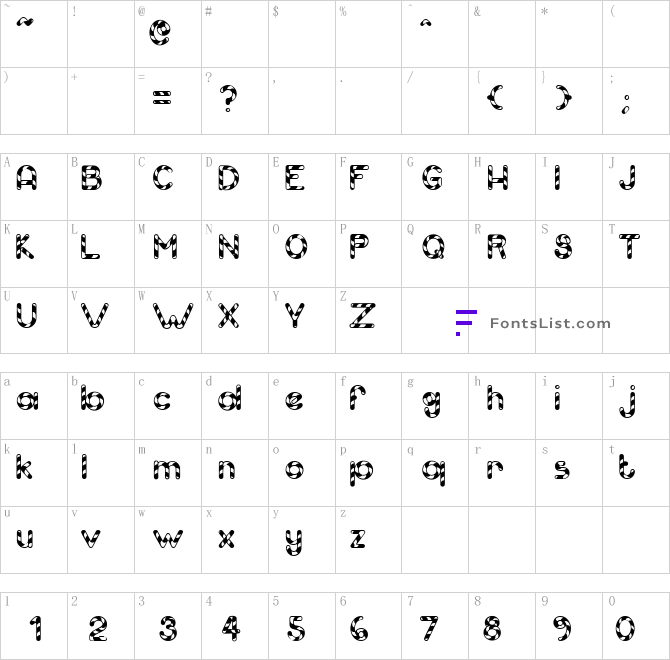
- Font Name:Candy Cane (Unregistered)
Candy-Cane-(Unregistered).ttf is a very beautiful artistic font, Candy-Cane-(Unregistered).ttf is widely used in the design and printing of various books and pictures,Candy-Cane-(Unregistered).ttf has a strong visual impact,Candy-Cane-(Unregistered).ttf is a commonly used font in newspapers, magazines and books, and is used in posters, e-commerce Poster design, store design, logo design, font design and other fields.Candy-Cane-(Unregistered).